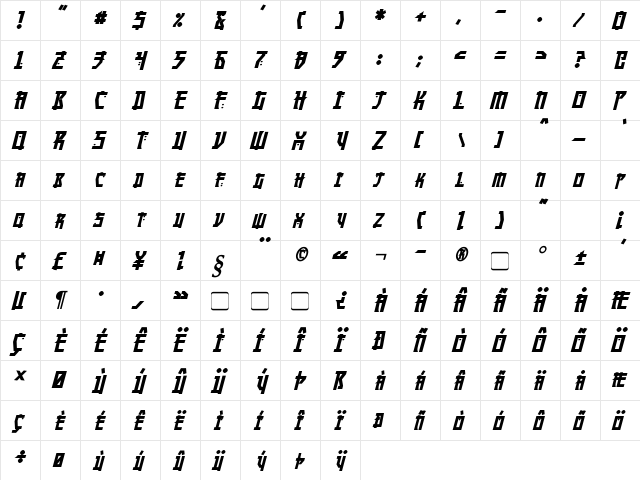
Manga Bold Italic
Design Context for Manga Typeface
Manga is a composed and adaptable typeface that performs quietly and consistently across a wide range of design contexts. The dynamic lean of this cut emphasises speed and emphasis in any layout. Its bold stroke weight gives it real presence on the page.
Pro Tip: Use Manga for emphasis, pull quotes, and subheadings where its slanted energy can add rhythm to the layout.